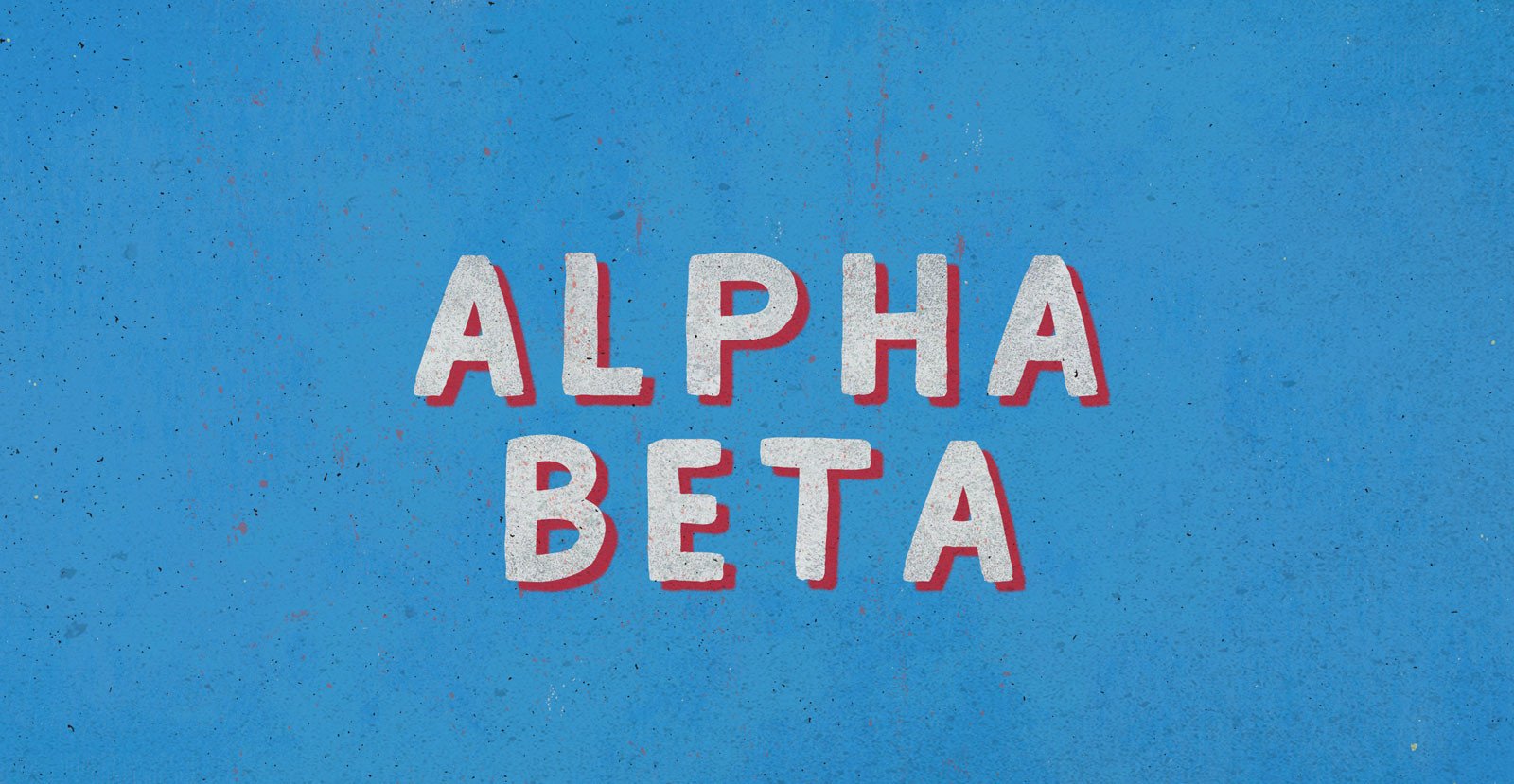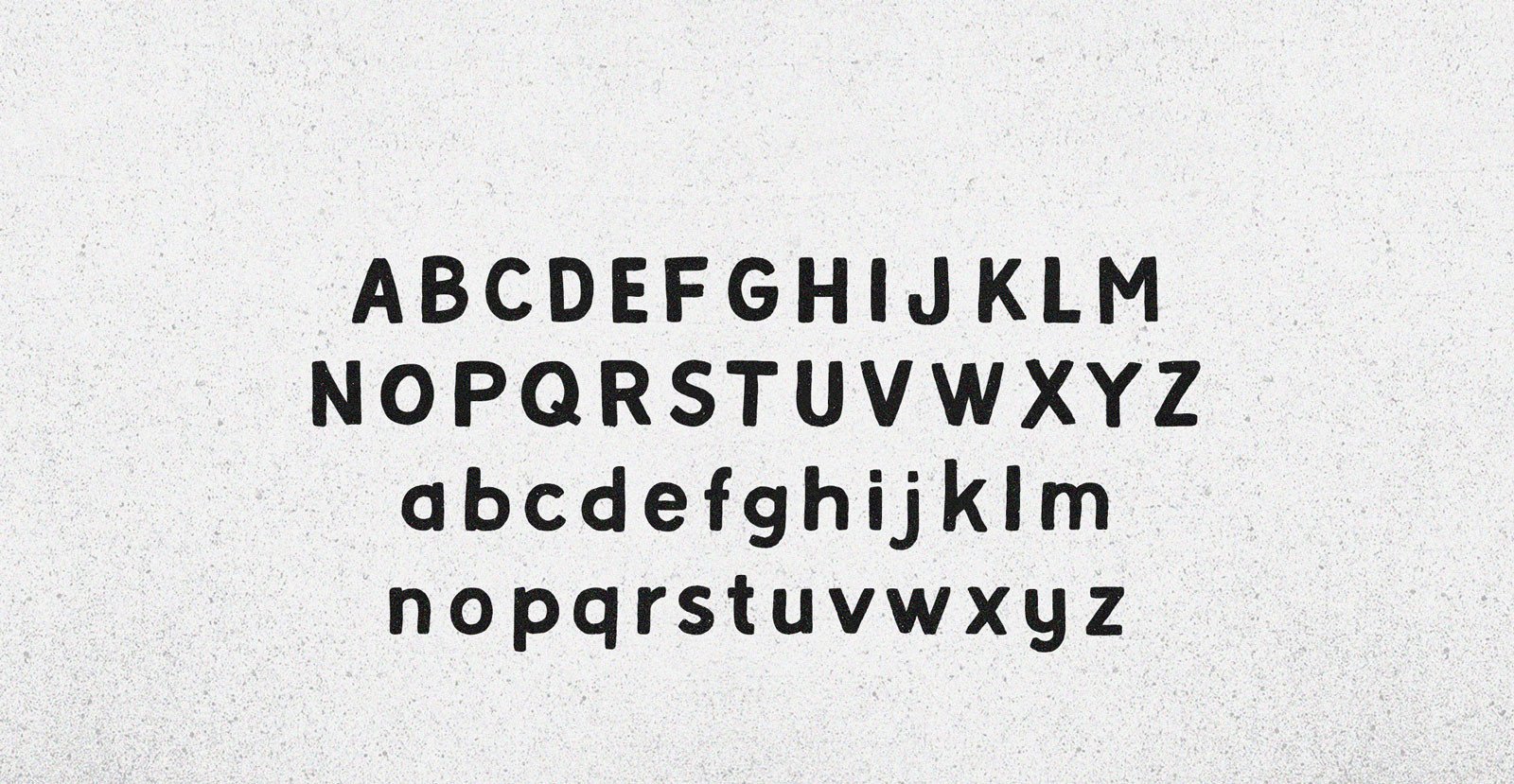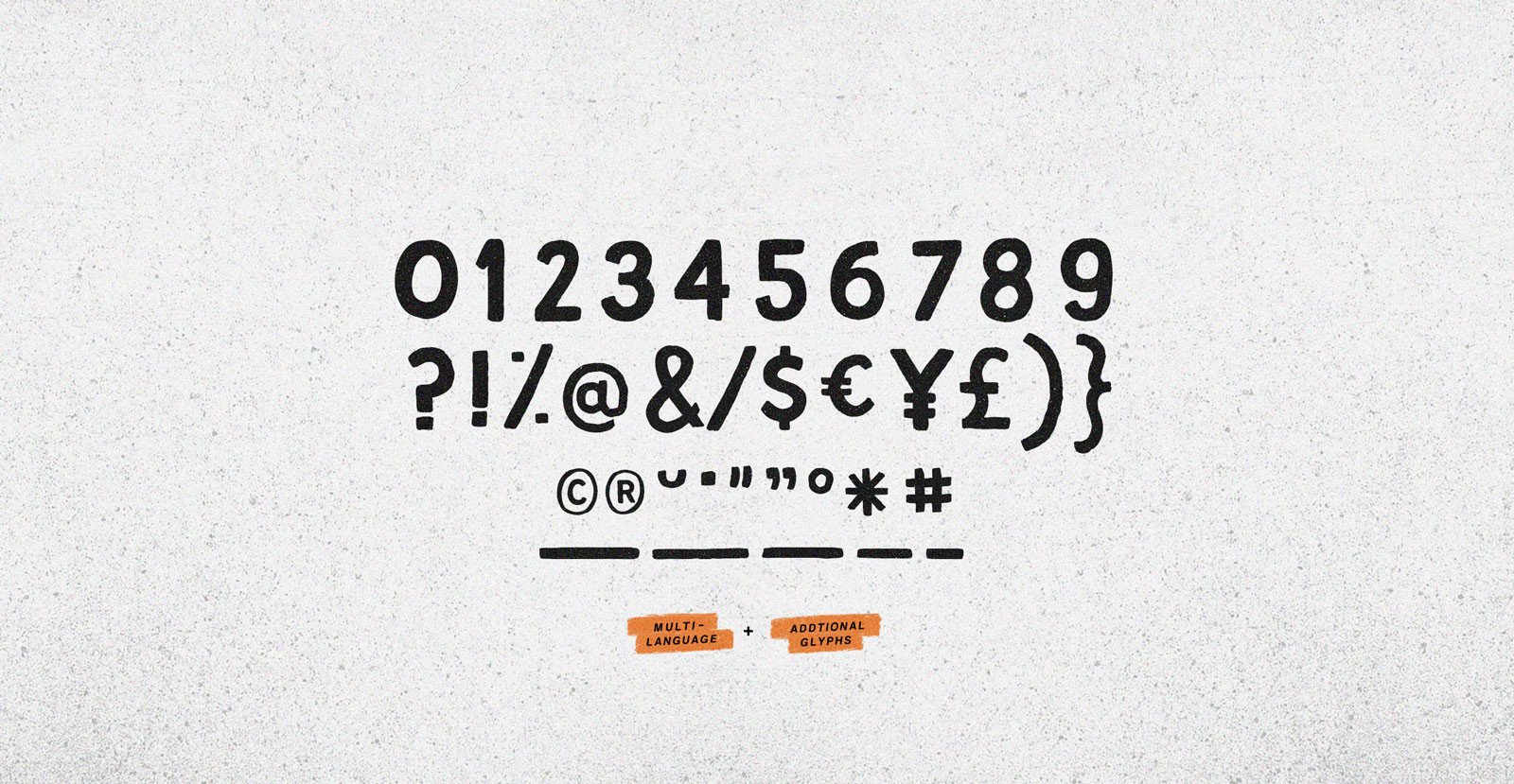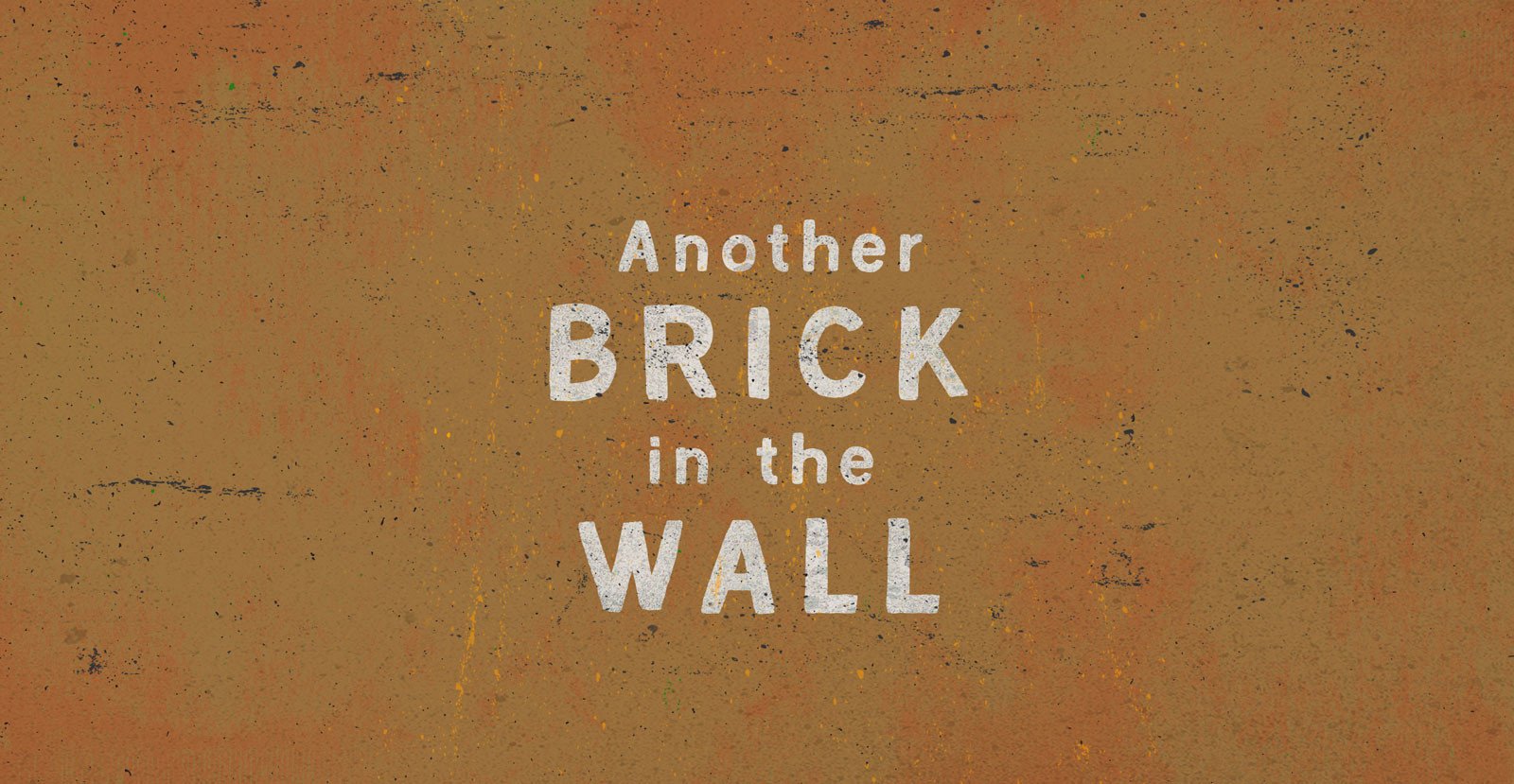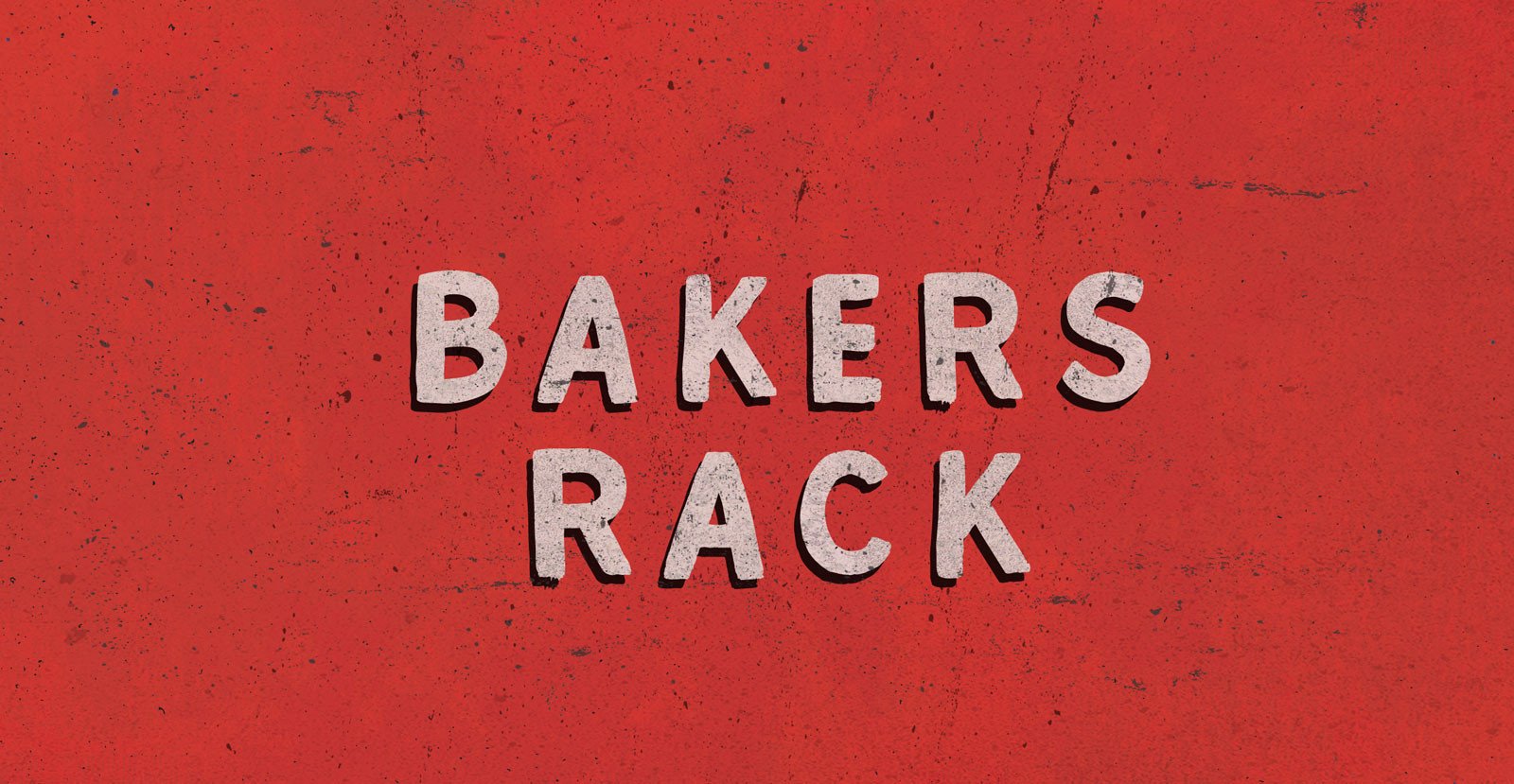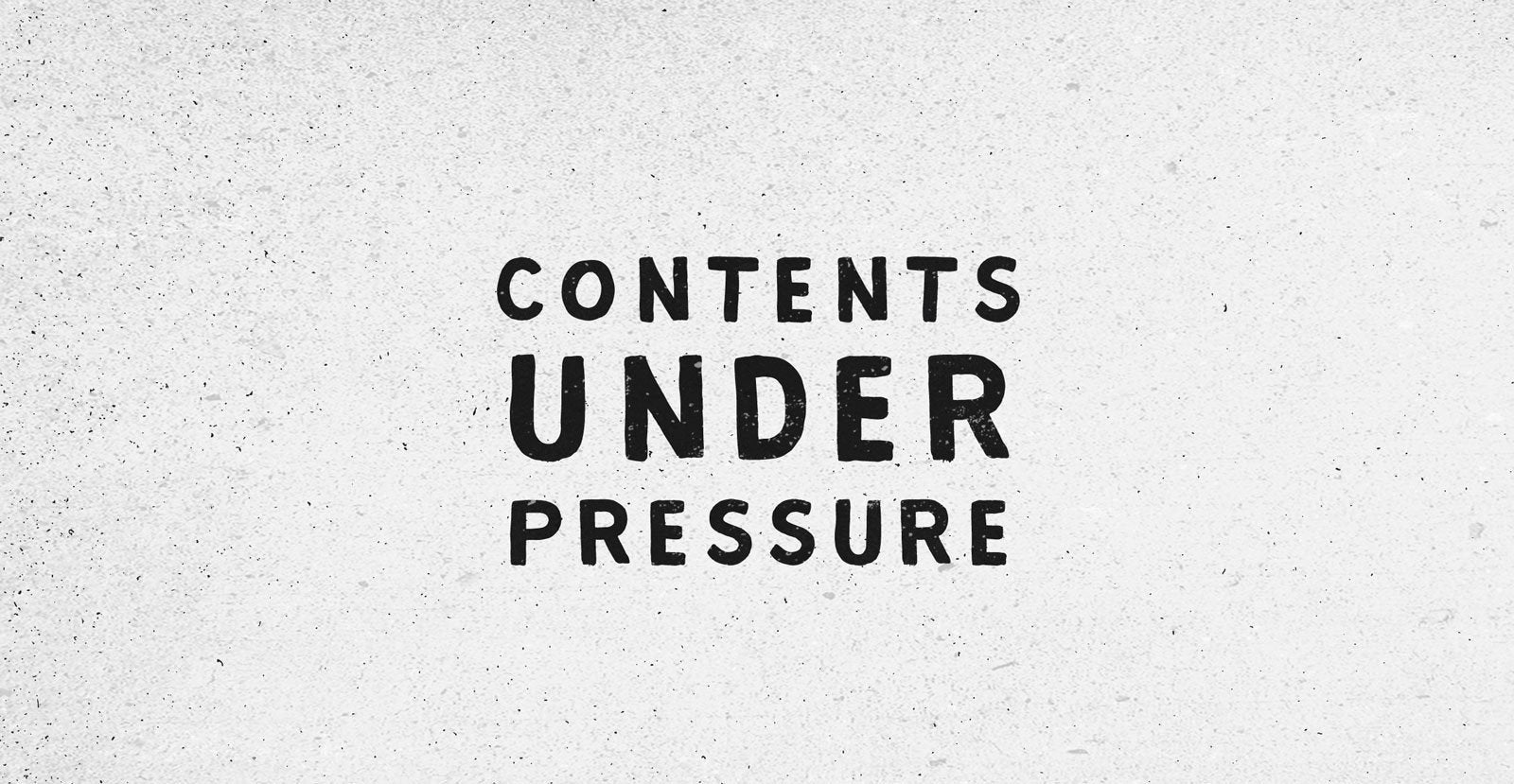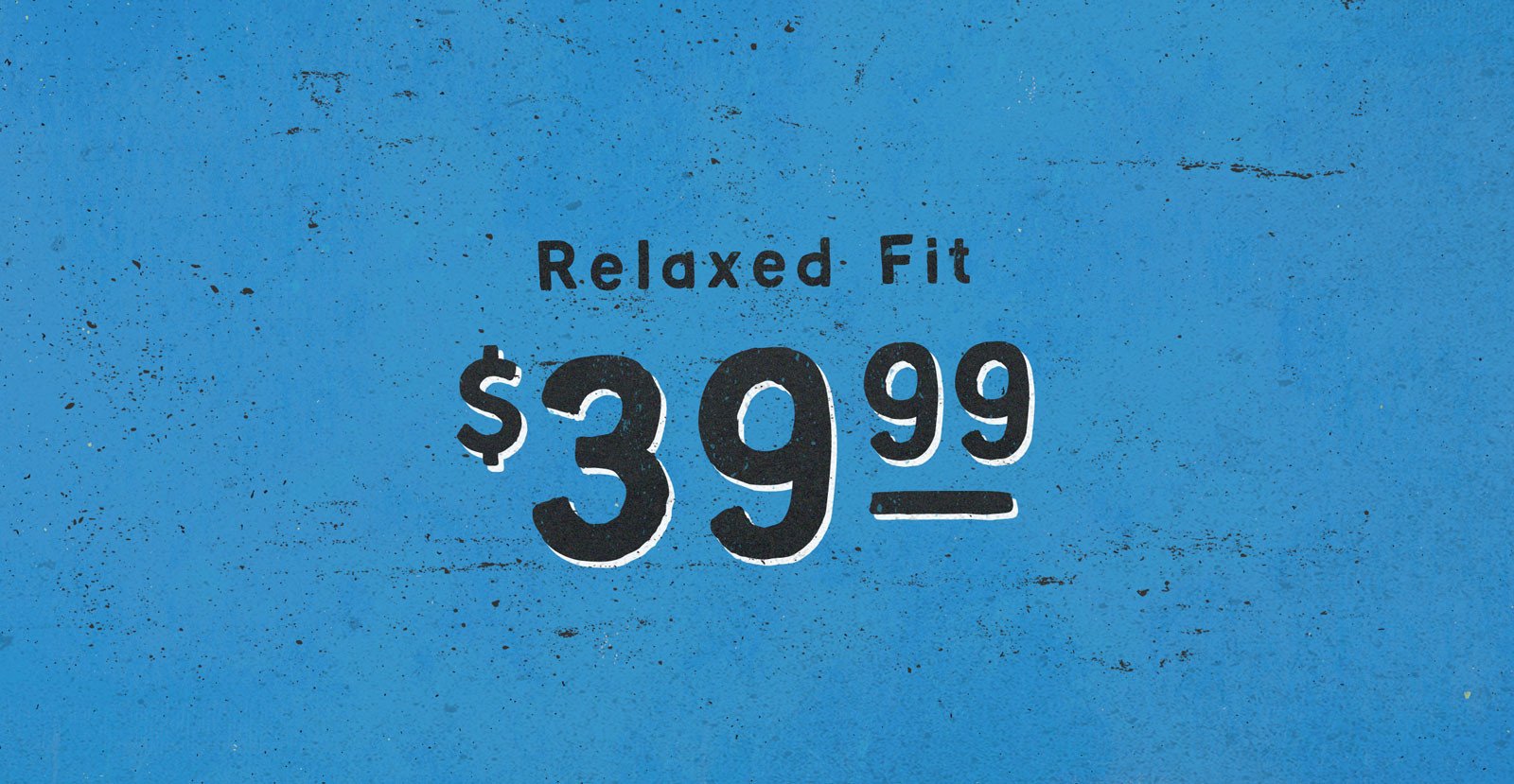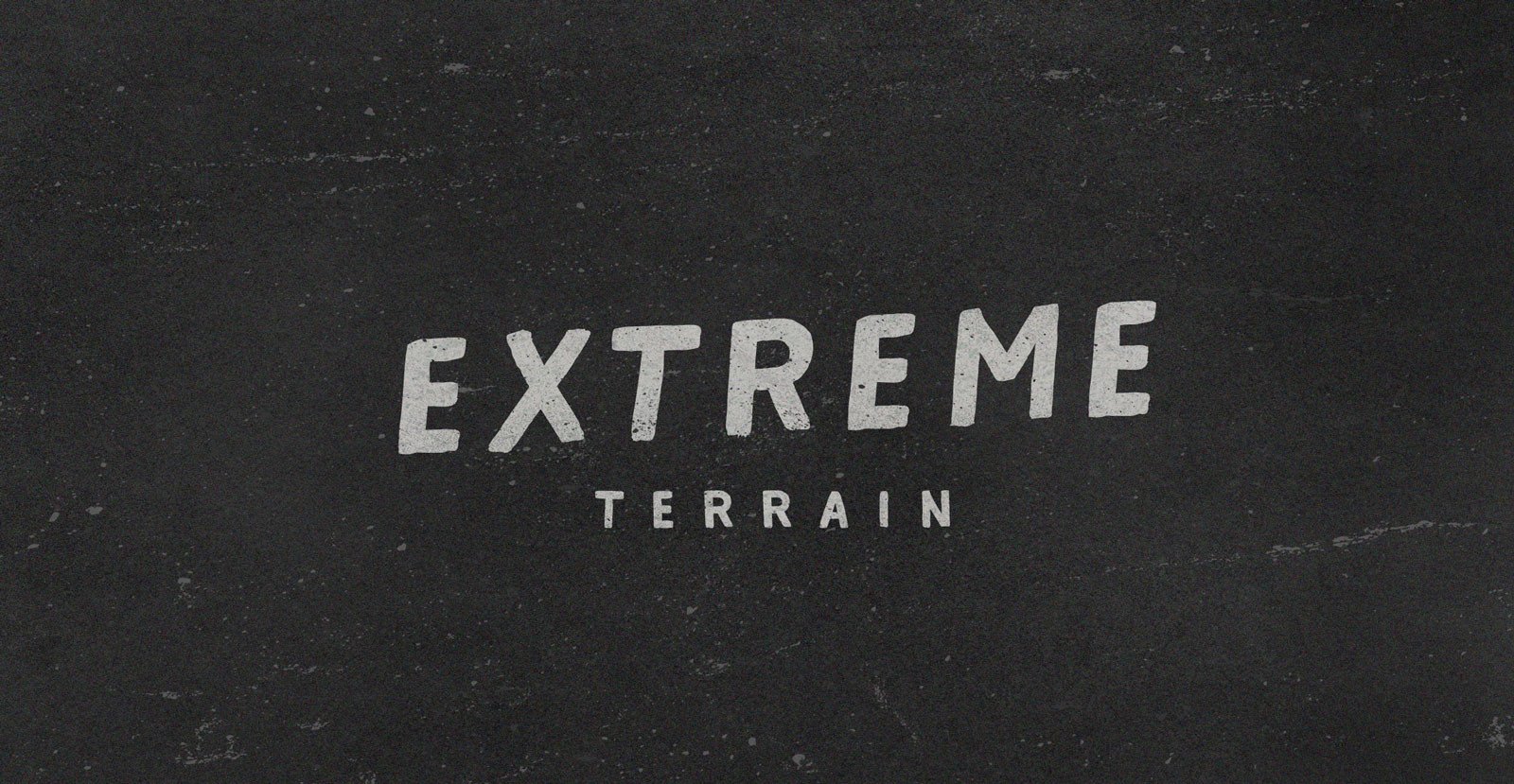
Alpha Beta
Steady in its place, ambitious in its outlook: Enter the journeyman of pack leaders. The Alpha Beta comes from behind to run ahead, before falling back; fighting and losing, fighting again, always to win.